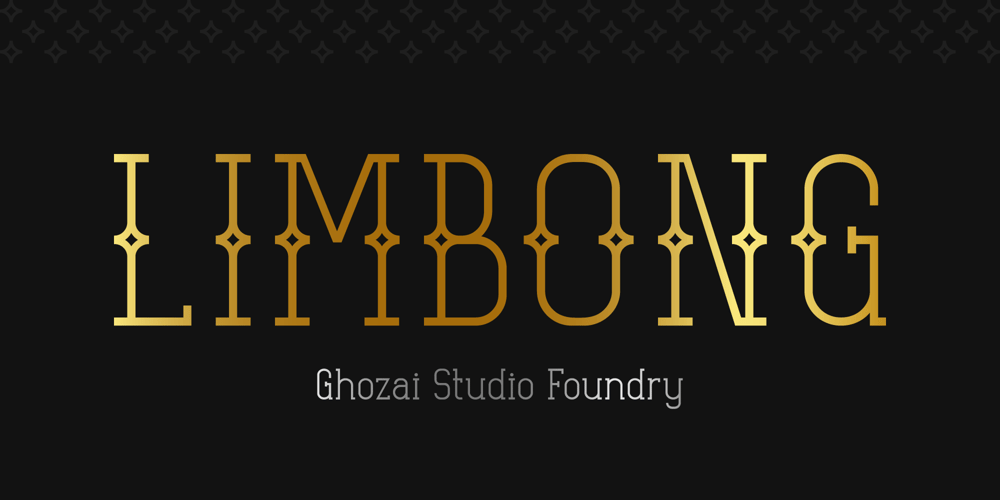
Limbong Font Family was designed by Manzur Ghozaali and published by Ghozai Studio. Limbong contains 4 styles and family package options. Limbong is a family of fonts inspired by Indonesian traditional patterns / ornaments that can be found in its clothes, carving, relief, and many more. Limbong comes in 4 weights and with an open type feature, Limbong also comes in 2 styles (ornamental and normal). It has a wide range of styles that are ideal for any design project.